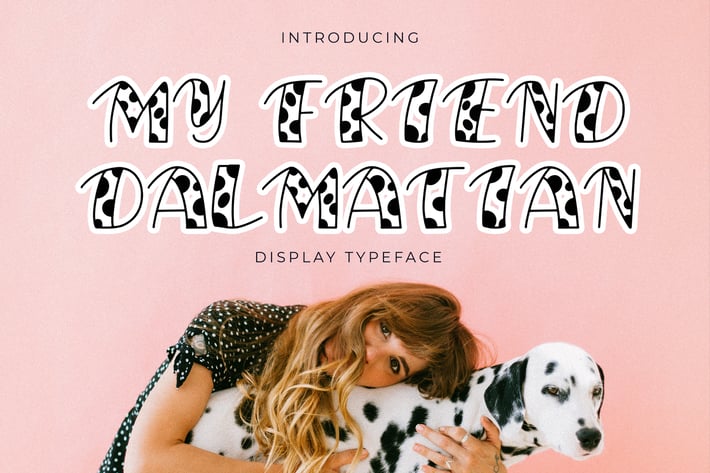
My Friend Dalmatian Display Font
My Friend Dalmatian is a playful pet and dog theme display font that will make any dog and pets design stand out!
My Friend Dalmatian is perfect for branding projects, logo, T-shirt designs, book cover design, social media posts, advertisements, product packaging, product designs, label, watermark, invitation, stationery, and any projects that has to do with pets.